Free Graffiti Fonts That Will Make Your Designs Pop!
Graffiti fonts can add a lot of character to a design. These typefaces are perfect for the emerging hipster in you, or for your rebellious side. There are plenty of different styles of graffiti fonts that you can choose from. For example, you can find fonts that are meant to look like old-style graffiti. You can also find fonts with a lot of detail and intricacy. Many times, these typefaces can say something about the person who is creating the piece.
Urban Graffiti Font
Sprite Graffiti Font
Sprite Graffiti is a type of brushstroke font. It’s a cute and playful font that can be used for headlines and even little stories. There are 3 free Sprite Graffiti fonts available:
Don Graffiti
Don Graffiti is an authentic graffiti style font perfect for those authentic projects. The font itself provides a clean touch to make it easily readable by different audiences and is distributed as an .OTF file.
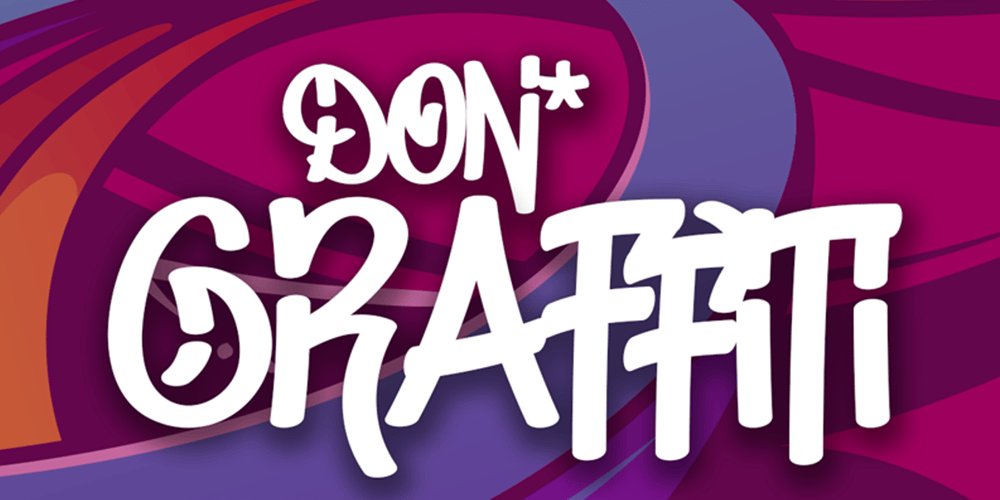
Southsider – Graffiti Typeface
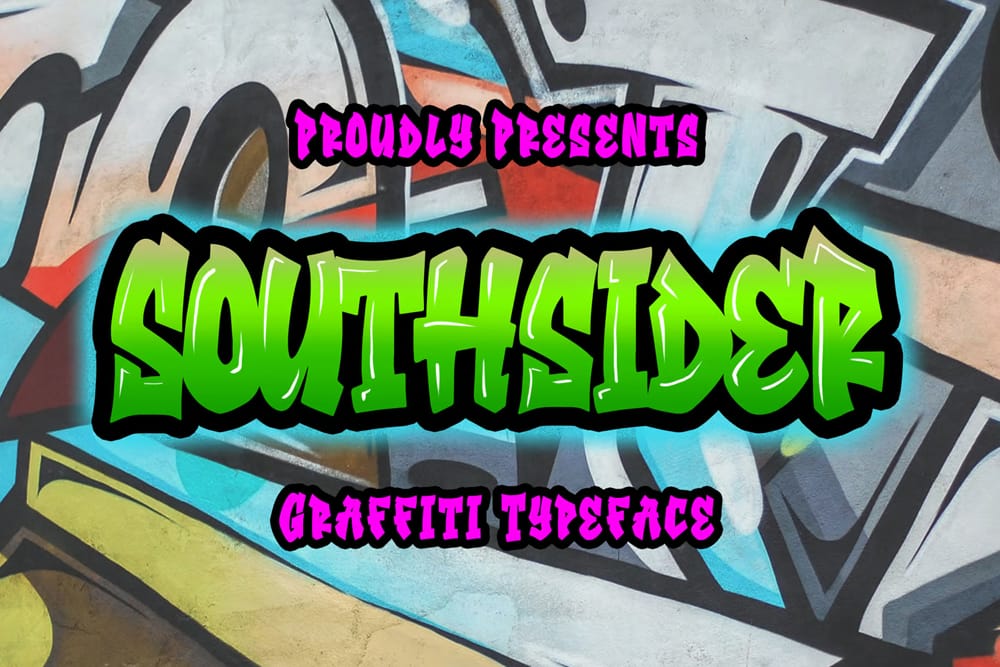
Broken Wings
Broken Wings is a new hand-drawn style typeface from the masters at Bdstrom Std. Broken Wing includes a nice variety of typography including both upper and lower-case letters as well as numbers and special characters. This font can be used to create a nice vintage vibe for any project from stationery to packaging. Get the font today from Pixel Surplus for free!
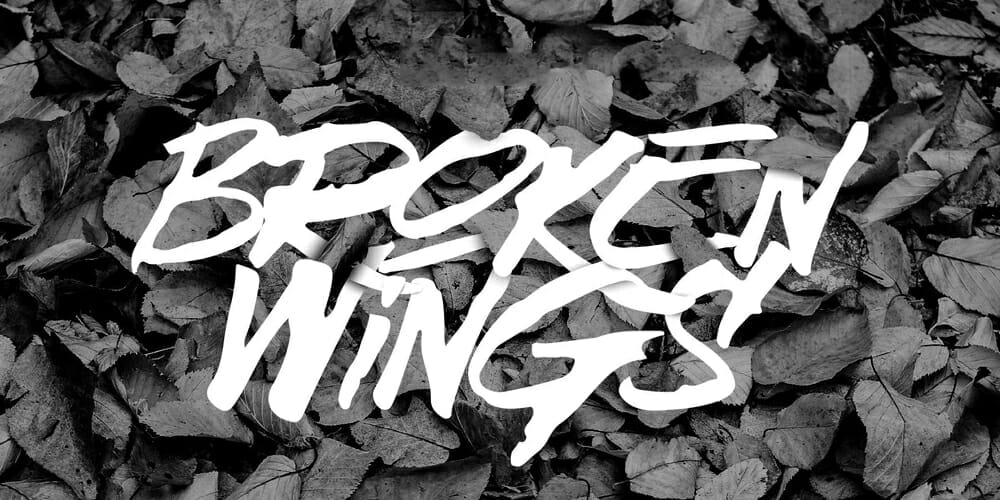
Rusto Fat Cap Tag Brush Font
Rusto Fat Cap Tag Font is the perfect way to let your design stand out. It’s easy to read, playful, and all-around fun. Try pairing Rusto with your logo, slogan, or other design elements for a chic look!
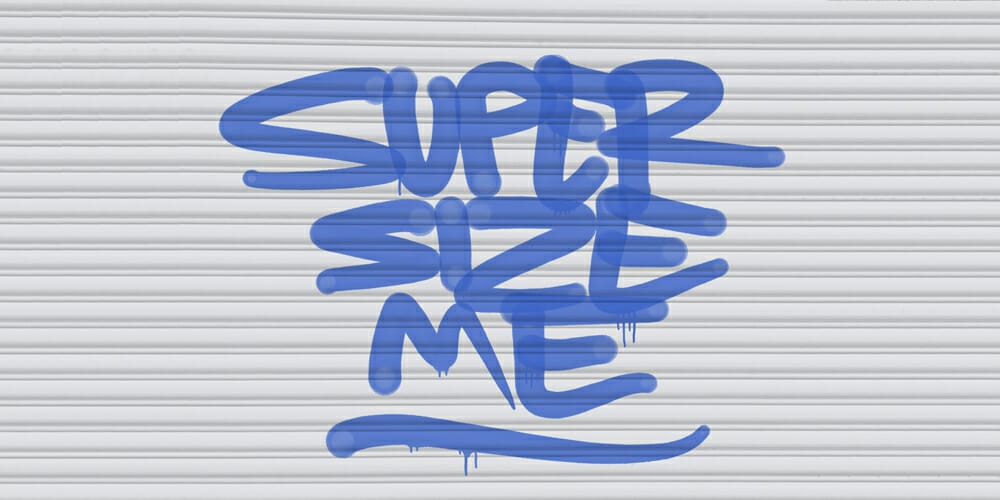
Districtside – Tagging Graffiti
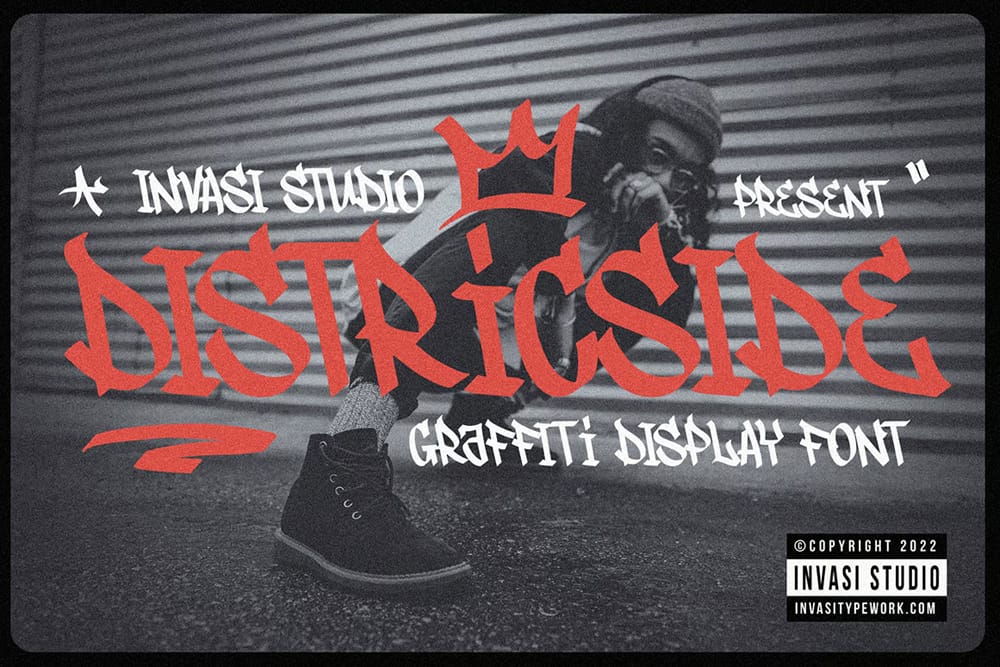
HVD Peace Font
HVD Peace is a beautiful typeface made for commercial use. It has a clean and simple look with a modern twist. It’s perfect for any design that needs a font with personality and character.
Humger Font
Artistic and popular, Humger is a grungy capital letter font with a smudge effect. Its authentic vintage character will help you create posters for your music band or design a logotype for your streetwear brand. Humger font also looks good when used in texts with big blocks of text.
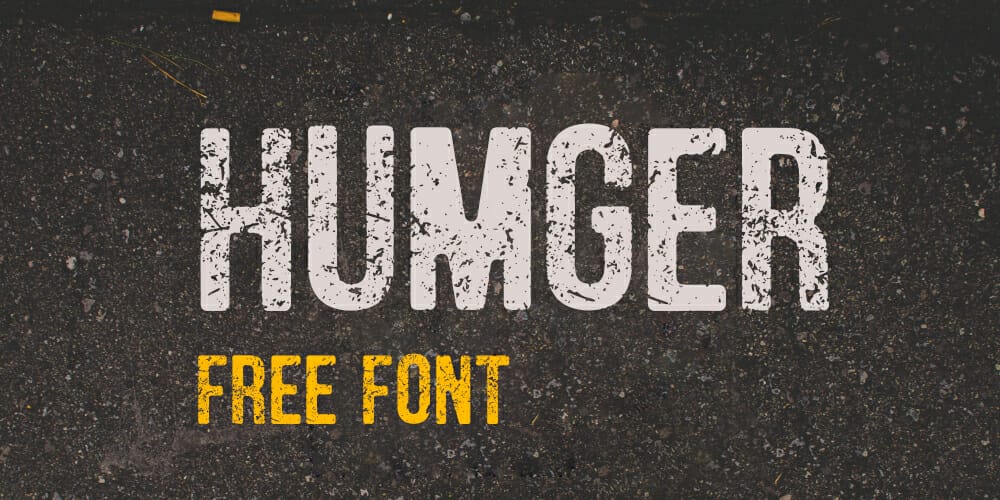
Sloppy Paint Font
Sloppy Paint font is a beautiful typeface for children’s book illustrations, fun typography projects, and anything that needs a splash of happy. Created by Japanese game designer Darrell Flood, this graffiti font is free to download for your personal use.
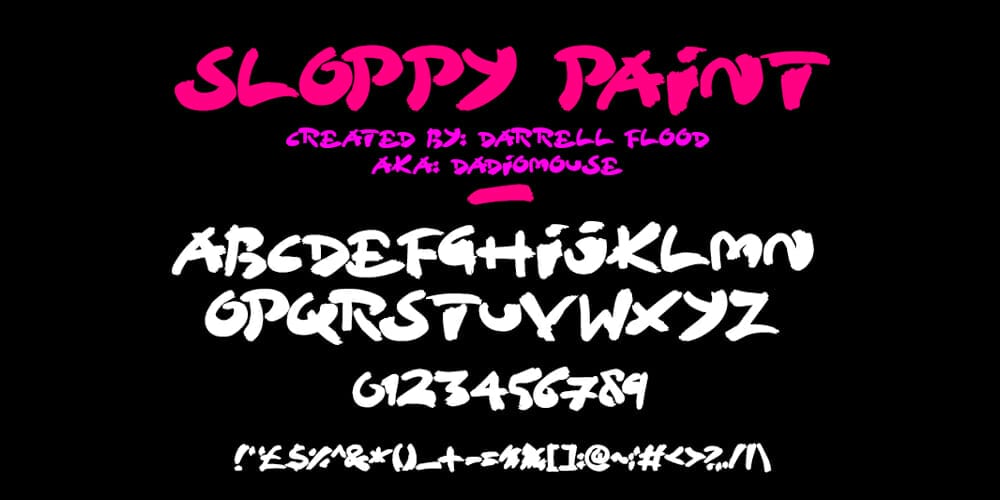
Fibre Vintage Font
Do you want an original font with a vintage touch? Then Fibre Vintage font is the one for you! This handwritten font is great for adding a personal touch to your projects. It will work great as logo, labels, cards, invitations, and more. It has a stylish look that makes it stand out from other fonts.
Bagsik
Bagsik is a free graffiti font with a nice selection of cooler letters for you to customize your texts. Make your writings feel like more than just mere words with this font.
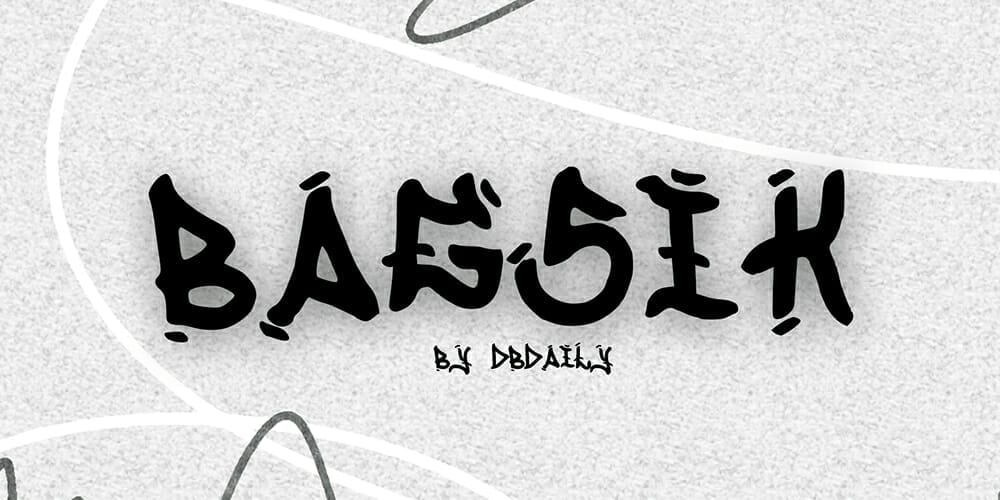
Attack Graffiti Font
Attack Graffiti Font-Paint draining on wall style letters. When you’re painting a building or a wall, don’t forget to use this font to make your artwork stand out prominently. This is a chilling style for any artist’s project to use.
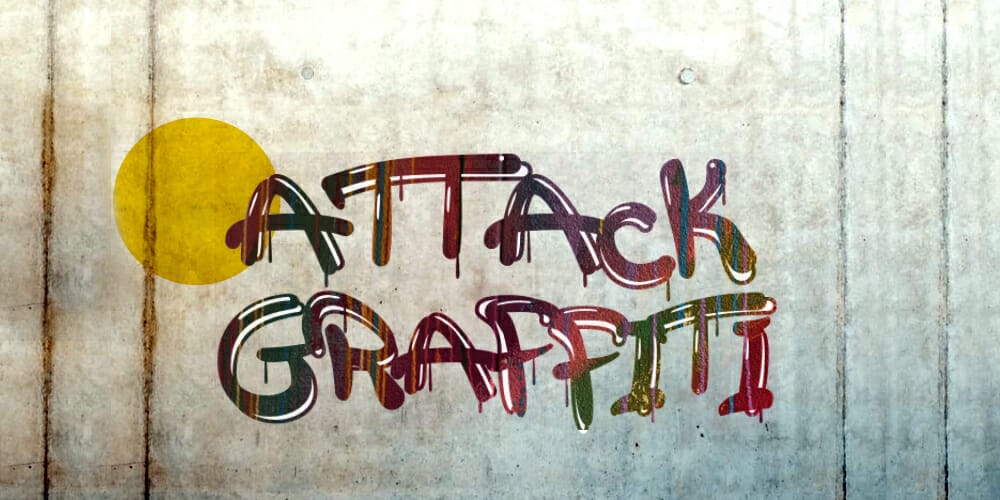
Summer Hearts
You know a hand-painted typeface when you see it. Summer Hearts has a personal and emotional connection with the user, and will remind you of the best time of your life. The brush strokes create a playful and natural feeling that is perfect for creating a whimsical design.
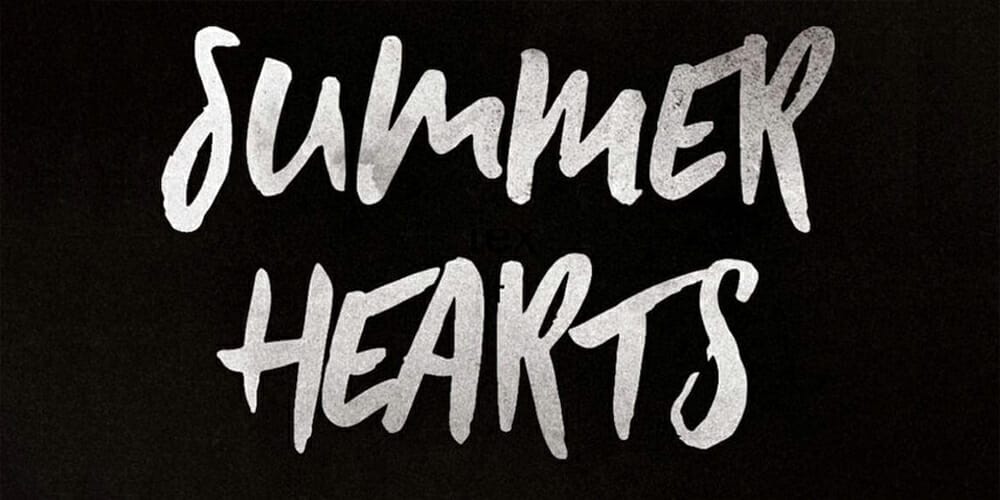
Sedgwick Ave Display Font
Sedgwick Ave is a fresh take on hand-lettered graffiti fonts with two different designs to suit your needs. Use the sharp lines of Sedgwick Ave Display for headlines, subheads, branding, quotes, and more. Opt for the more legible Sedgwick Ave for text size projects like posters, ads, logos, and more.
Onek
Onek is an inspiring font with lettering combinations, to make you think about different letters and the way they work together. Make your creativity flow.
Beatstreet Font
NMF Burner
knewave
Athens
Lazer 84
Manoyri Font
Sweet Sorrow Font
Mayhem Font
Docallisme On Street
IIllegal Edding
Deformica
Jungle Life
Arena Graffiti
Thirsty Caps
Graffiti Street
Neon Ring
Joyful Berlin
Adecko Font
Styling Zero
Floripixo Typeface
Rocket Queen Street Graffiti Font
Black Discord Graffiti Font
Step Better – Free Urban Graffiti Tags Font
Most Wasted Font
Strenght to Strenght – Hand Scratch Font